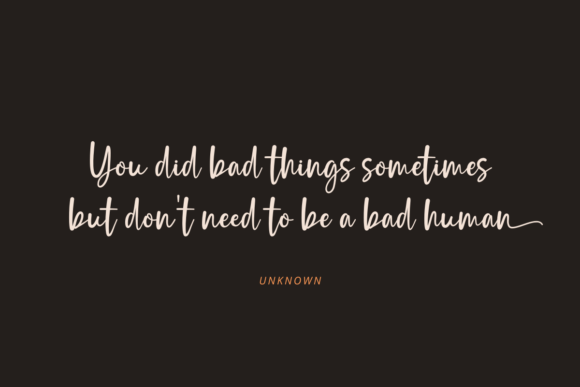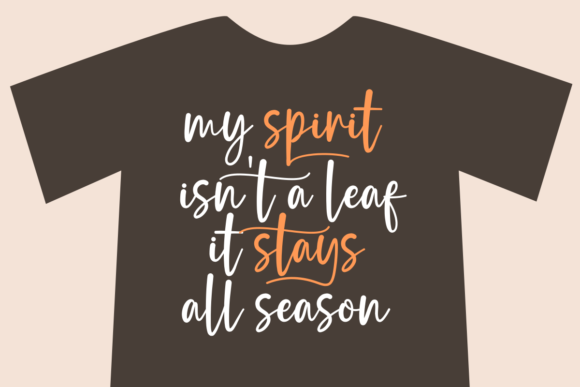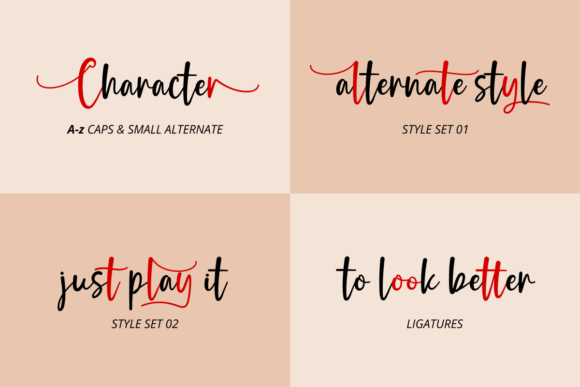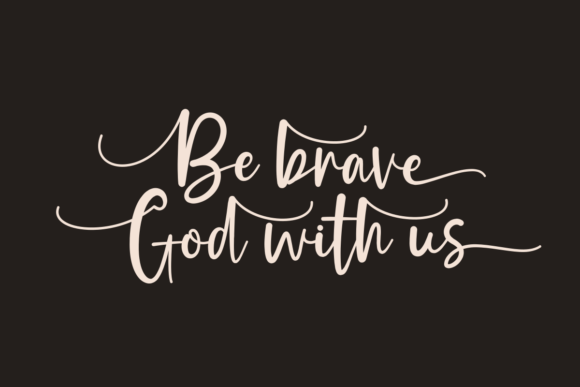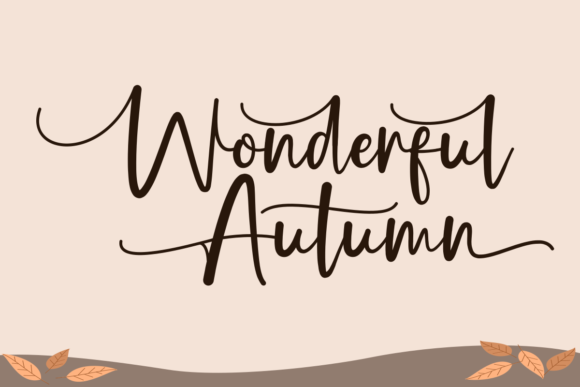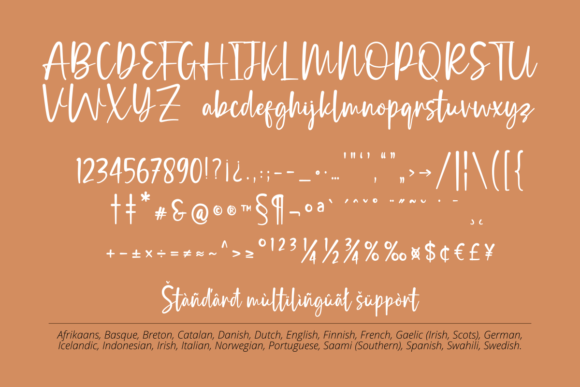
Introduction to Holla Autumn Font Font
Fonts play a crucial role in design, and the Holla Autumn Font font is a typeface that brings both character and versatility to any project. Whether you’re working on a branding project, a website, or a print design, the Holla Autumn Font font offers a unique style that can elevate your work.
| 📌 Font Name | Holla Autumn Font |
| 👤 Author | Medina Type |
Holla Autumn is an enchanting handwritten font.
This versatile script font has a wide spectrum of applications ranging from greeting cards to headlines Holla Autumn is PUA encoded which means you can access all glyphs and swashes with ease.
Key Features of Holla Autumn Font Font
Why Choose Holla Autumn Font Font?
The Holla Autumn Font font is more than just a typeface – it’s a design tool that helps you communicate your message with style and clarity. Its unique character set and versatile design make it suitable for a wide range of applications, from elegant invitations to bold headlines.
With its carefully crafted letterforms and balanced proportions, the Holla Autumn Font font ensures readability and visual appeal across all mediums.
What makes Holla Autumn Font font special?
The Holla Autumn Font font stands out with its unique design, exceptional readability, and versatility across various design applications.